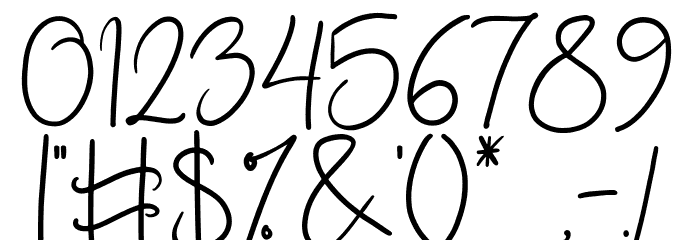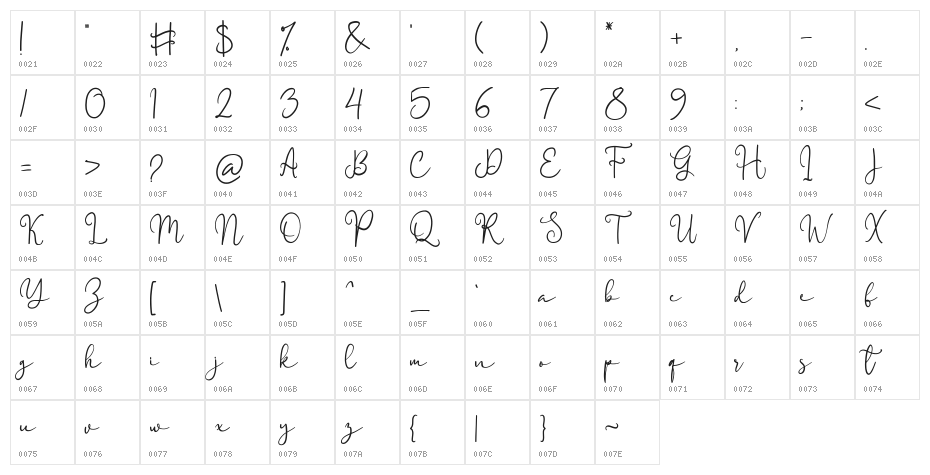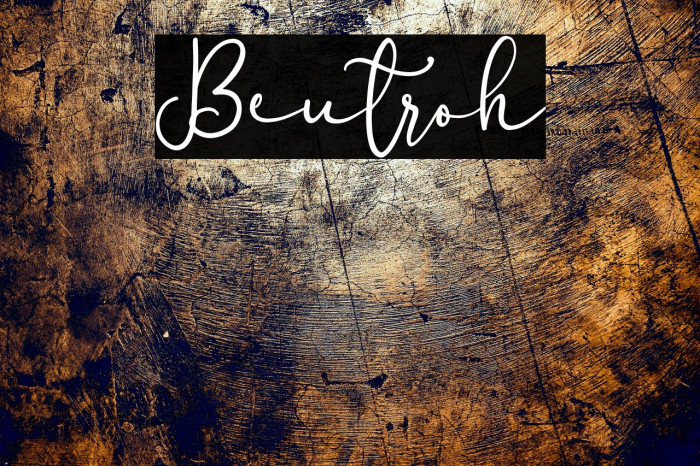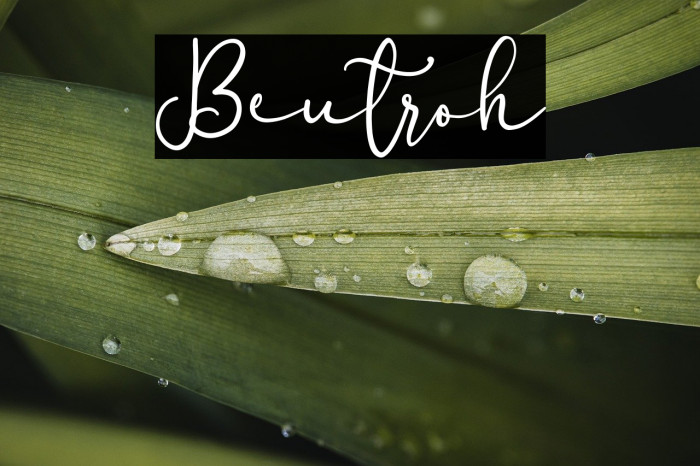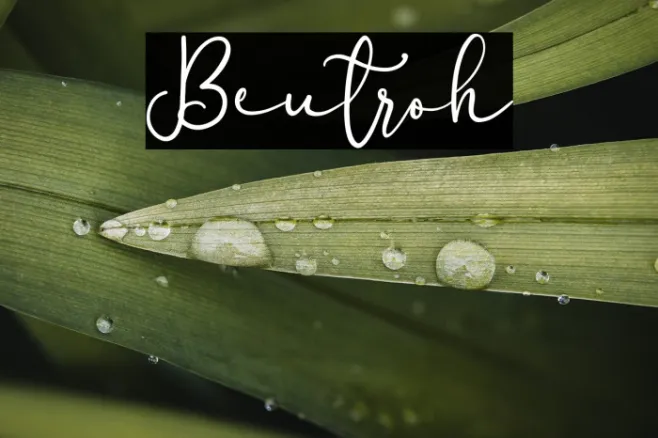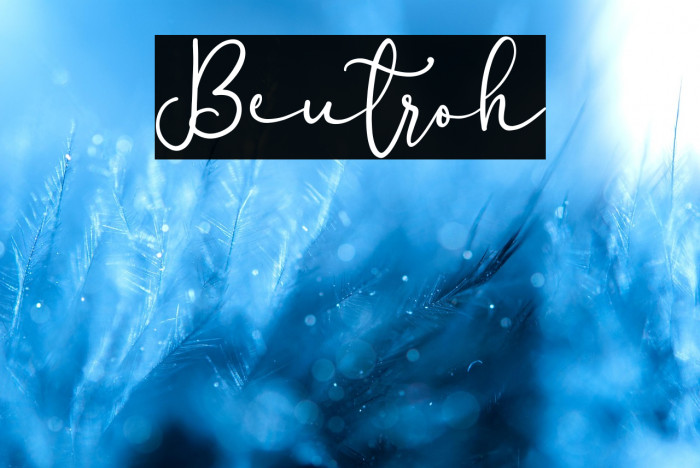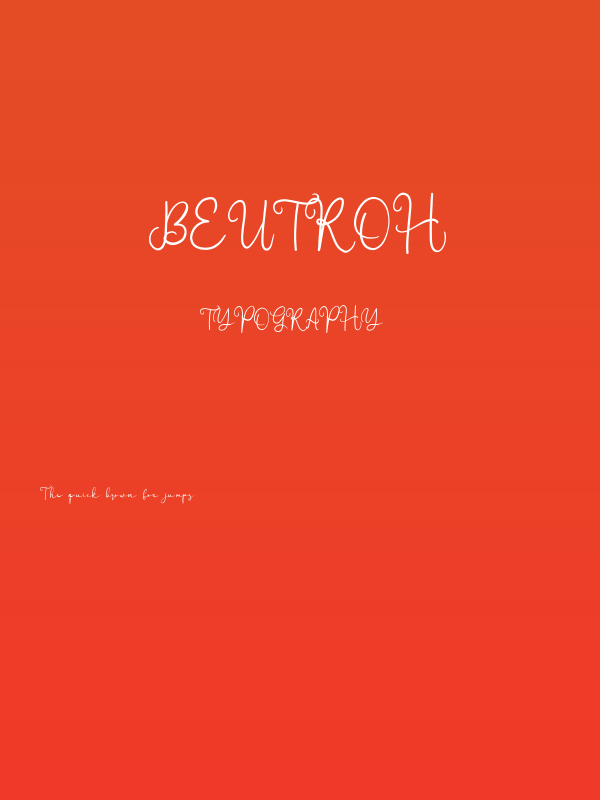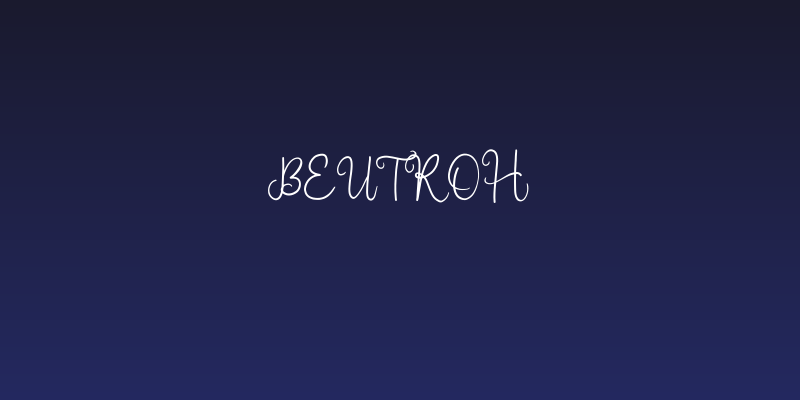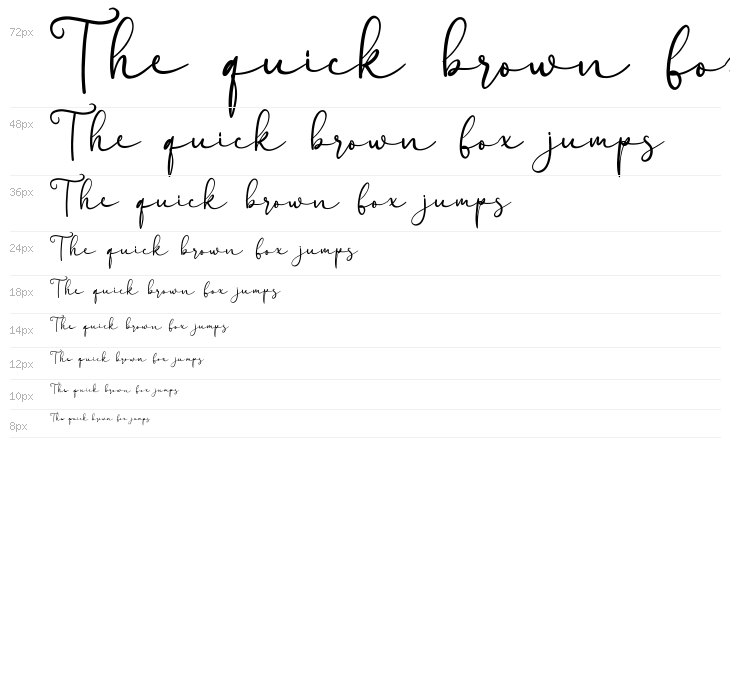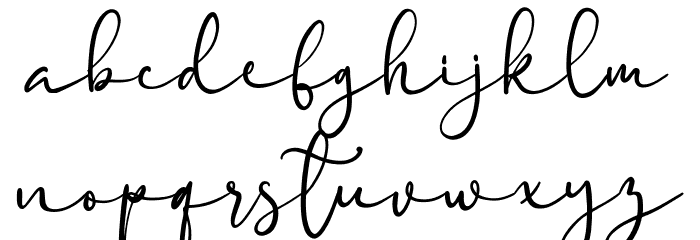
Beutroh Font
Beutroh Description
This font features a playful and elegant script style with a handwritten appearance. The letters are fluid and connected, giving a sense of movement and personality. The uppercase letters are slightly more ornate, with loops and curves that add a touch of sophistication. The lowercase letters maintain a consistent flow, enhancing readability while retaining a casual charm. The numerals are clear and well-formed, matching the overall aesthetic. Special characters are integrated seamlessly, maintaining the font's cohesive look. This font is perfect for projects that require a personal touch, such as invitations, greeting cards, or branding materials.